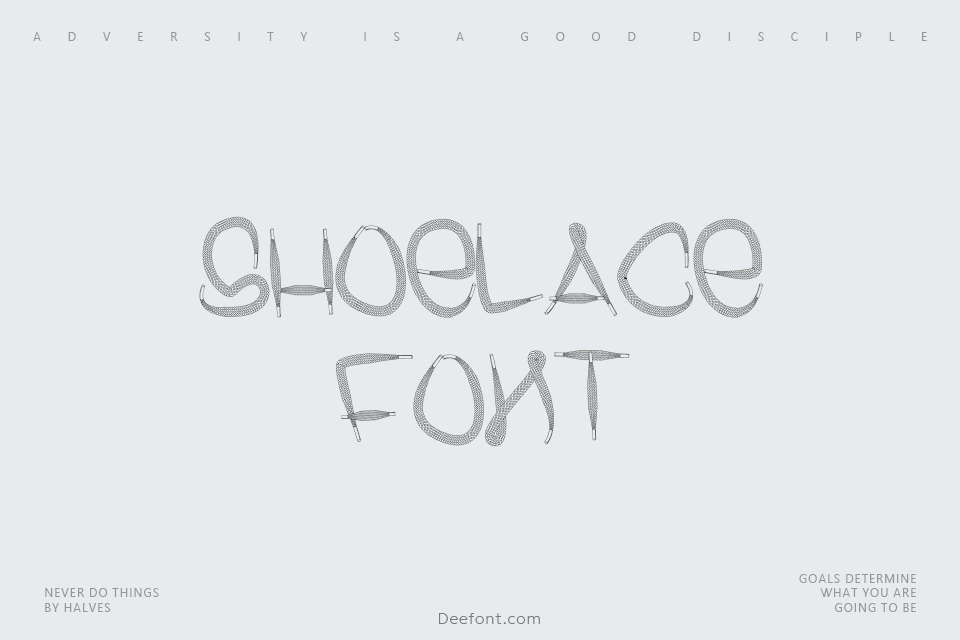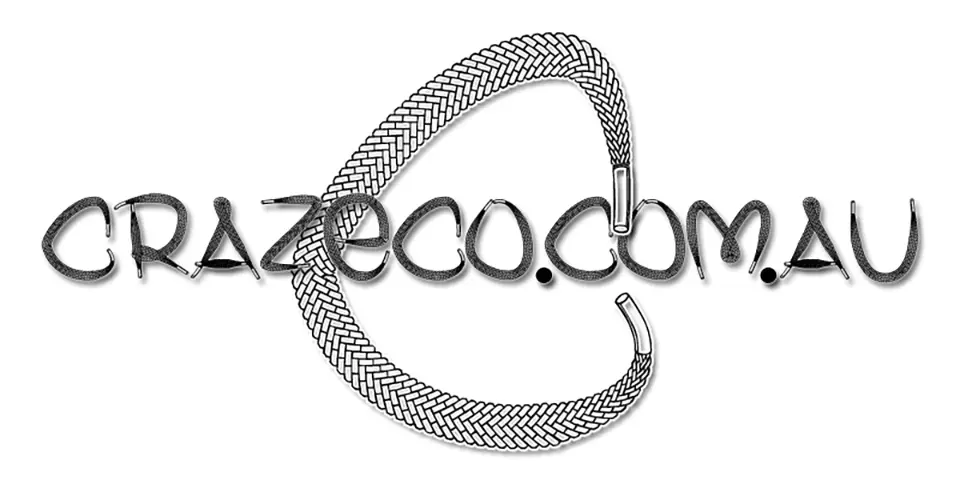
Shoelace Font
Shoelace Font is a decorative and fancy typeface inspired by physical shoelaces, featuring a unique playful design with a handcrafted appearance. Created by CrazeCo.com.au and released in May 2014, this font delivers creative versatility for various design applications. With its distinctive visual character, the font works exceptionally well for logos, badges, invitations, poster designs, and headline typography, adding a playful dimension to creative projects. The typeface maintains excellent legibility while preserving its charming, unconventional aesthetic that appeals to designers seeking distinctive typographic solutions.